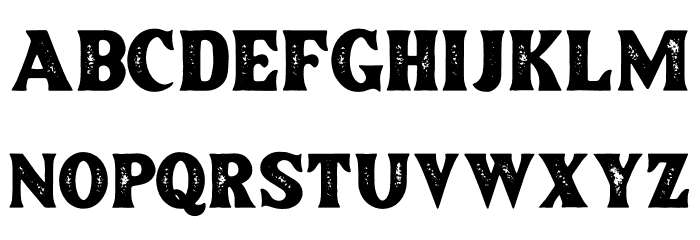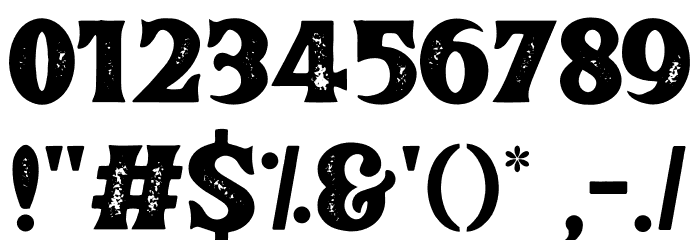
Brotherland-Aged Font
This font features a bold, distressed style with a vintage aesthetic. The characters are heavily textured, giving them a worn and aged appearance, reminiscent of old woodblock prints or weathered signage. The serifs are pronounced and slightly curved, adding to the classic yet rugged feel. The uppercase letters are particularly striking, with unique embellishments that enhance their decorative quality. The numbers and special characters maintain the same distressed look, ensuring consistency across all glyphs.
A bold, distressed serif font with a vintage, weathered look.
- Proposed Projects: Ideal for vintage-themed posters, branding for rustic or artisanal products, and designs that require a classic yet rugged aesthetic.
- Overall Style: Vintage